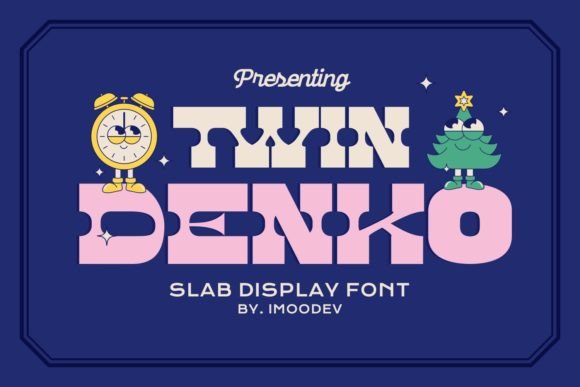
Introducing the Exhilarating and Unparalleled World of the "Twin Denko" Font: Crafted for the Bold Storytellers
In the vast ocean of fonts, "Twin Denko" stands as a beacon of creativity, igniting the imagination of every blogger, designer, and creative visionary. This modern and playful display typeface possesses an electrify charm and boundless versatility, ready to transform your digital creations into captivating masterpieces.
With its unique character, "Twin Denko" font propels your ideas to extraordinary new. Each letter, designed with meticulously crafted curves and strokes, invites your audience into an immersive experience that lingers in their minds. The font's captivating presence commands attention, leaving an unforgettable impact long after they leave the screen.
Unleash the infinite possibilities that "Twin Denko" unlocks. This font is not merely a collection of characters; it's a testament to the power of words. With its ability to evoke emotions, engage readers, and craft unforgettable narratives, "Twin Denko" transforms your written stories into immersive tales that ignite imaginations.
In a world clamoring for meaningful connections, "Twin Denko" answers the call with its enthralling design. Designed by the visionary minds of Imoodev, "Twin Denko" exudes a touch of uniqueness that sets your work aside from the ordinary. Embrace this exceptional font and watch your digital creations soar to unprecedented levels of brilliance.